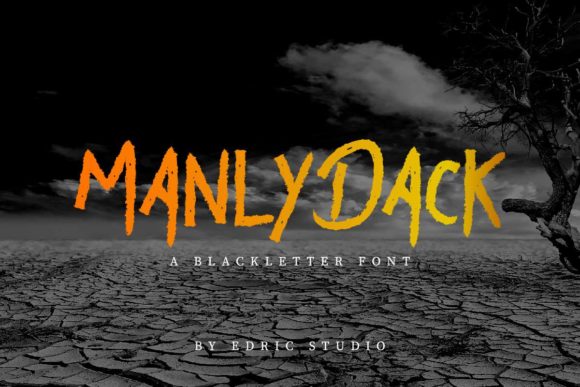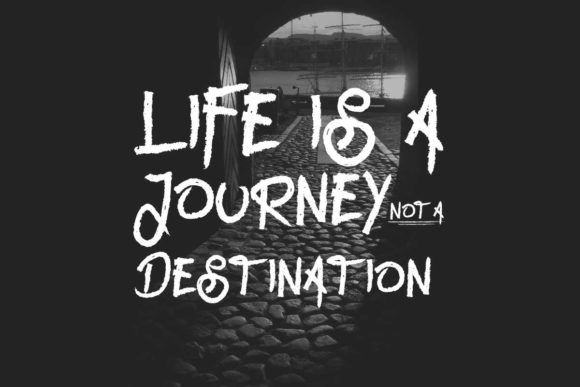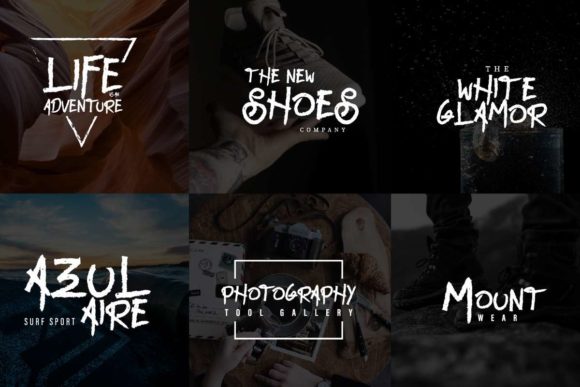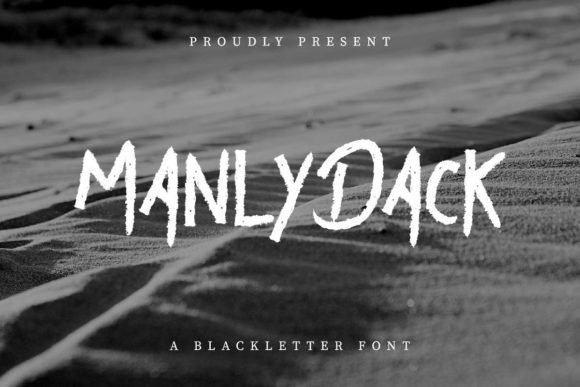
Introduction to Manly Dack Font
Manly Dack is a unique display font created by using a brush pen.
Its casual charm makes it appear wonderfully down-to-earth, readable and, ultimately, incredibly versatile Manly Dack will look outstanding in any context, whether it’s being used on busy backgrounds or as a standalone headline.
Key Features of Manly Dack Font
Why Choose Manly Dack Font?
Manly Dack Font offers exceptional quality and versatility, making it a valuable addition to your design toolkit. Whether you’re creating for personal projects or commercial use, Manly Dack Font delivers professional results.